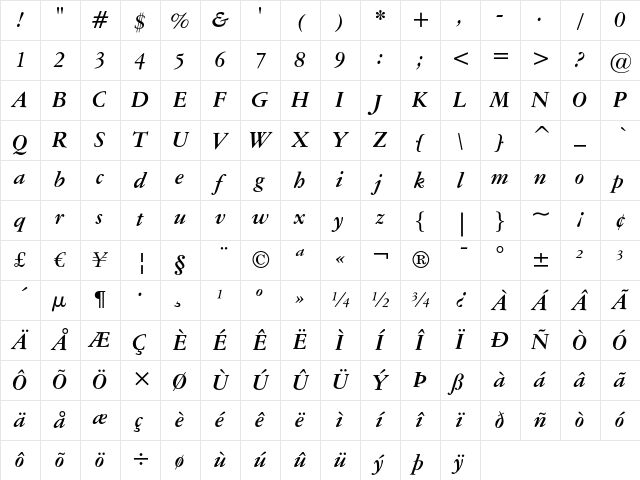
American Garamond Bold Italic
American Garamond Family
Design Context for American Garamond
American Garamond is a composed and adaptable typeface that performs quietly and consistently across a wide range of design contexts. The slanted form adds forward momentum and visual energy. Its bold stroke weight gives it real presence on the page.
Pro Tip: Use American Garamond for emphasis, pull quotes, and subheadings where its slanted energy can add rhythm to the layout.